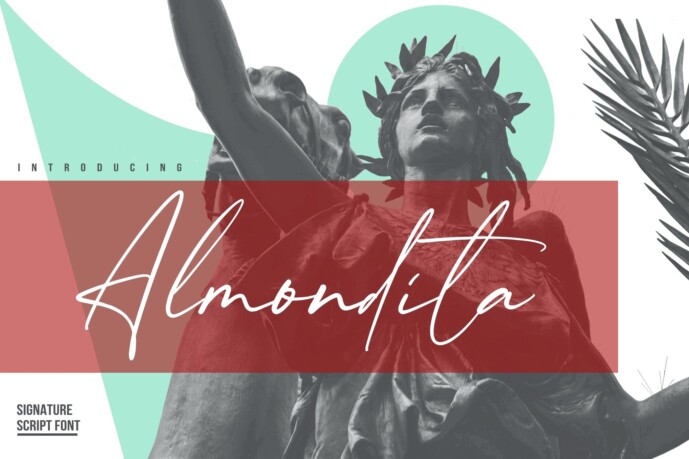
Almondita Font
Designer: BalpirickStudio
Proudly Present, Almondita Script Logo Font
Almondita is an enchanting Script Handwritten font. This versatile script font has a wide spectrum of applications ranging from greeting cards to headlines and is guaranteed to add a romantic feel to your next project.